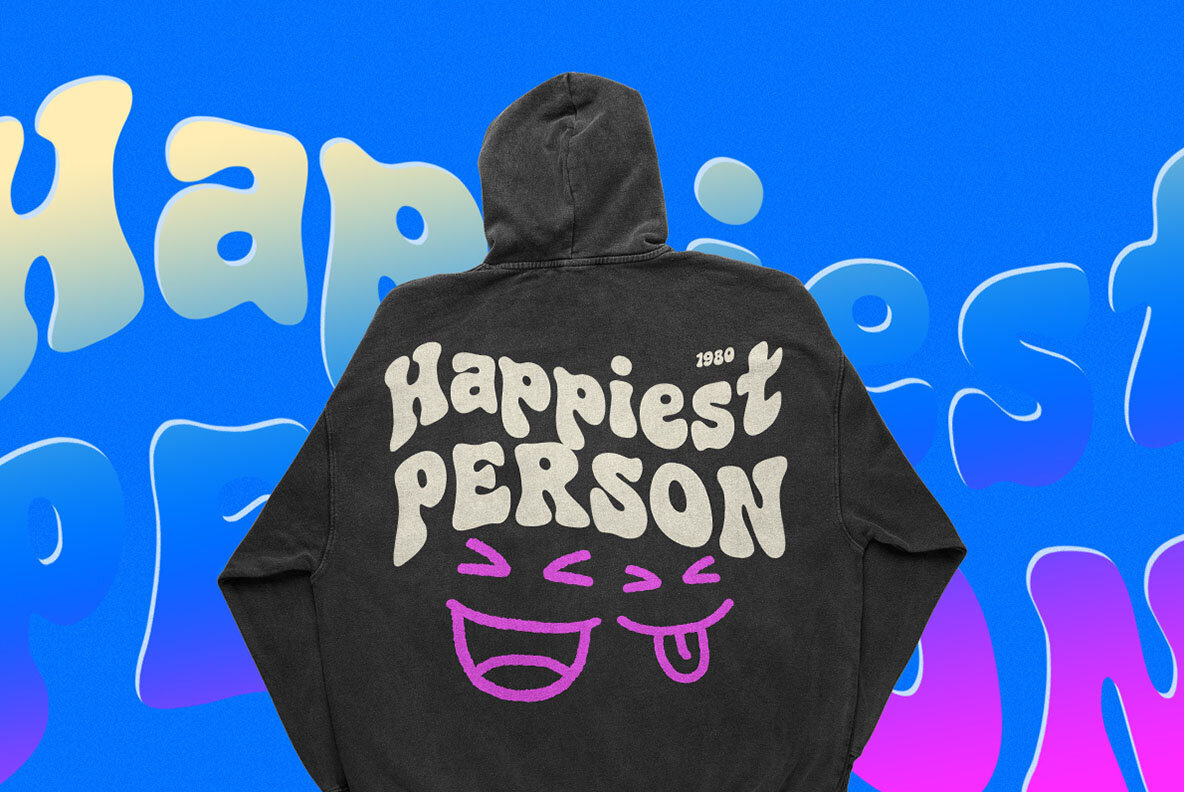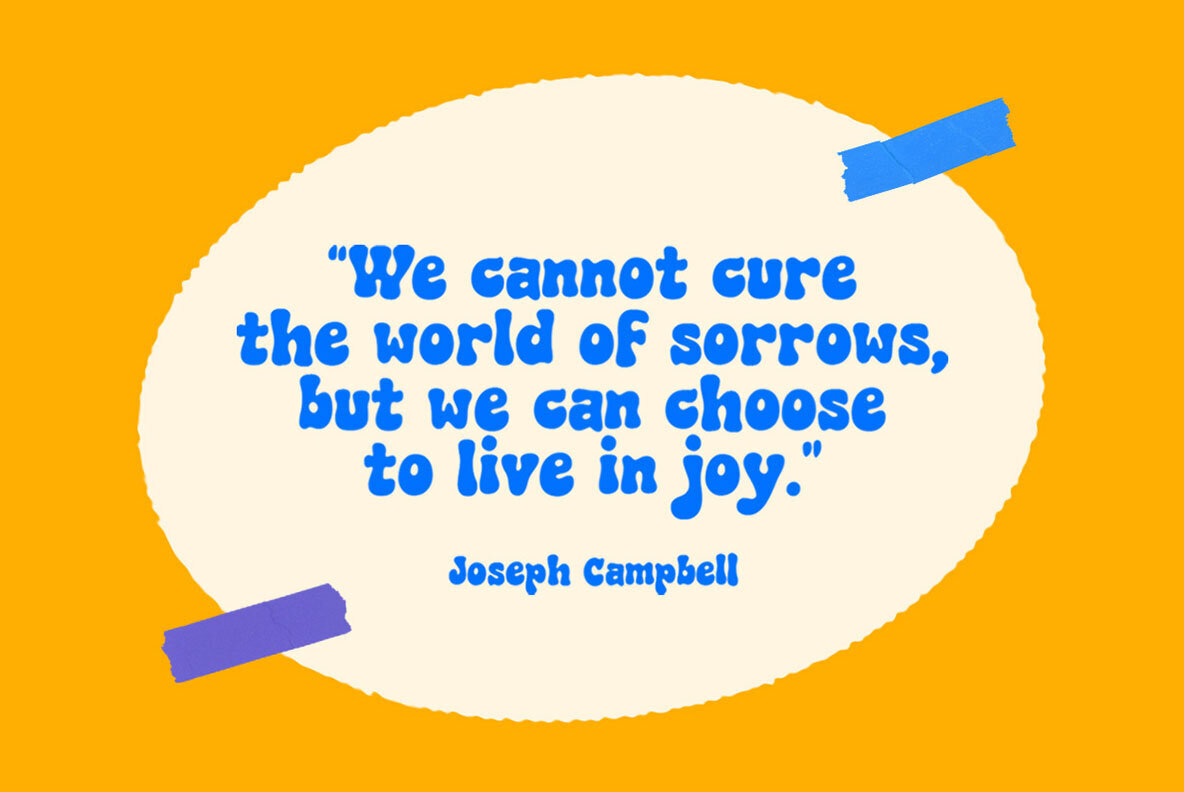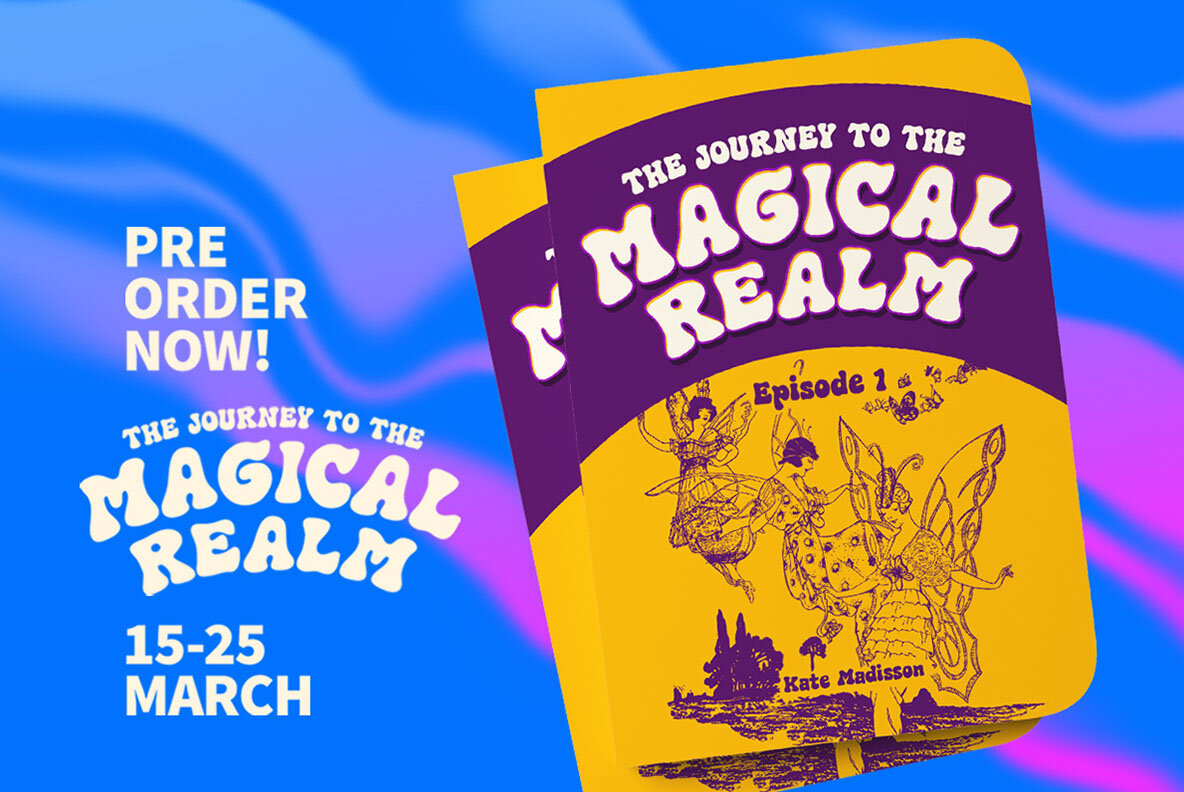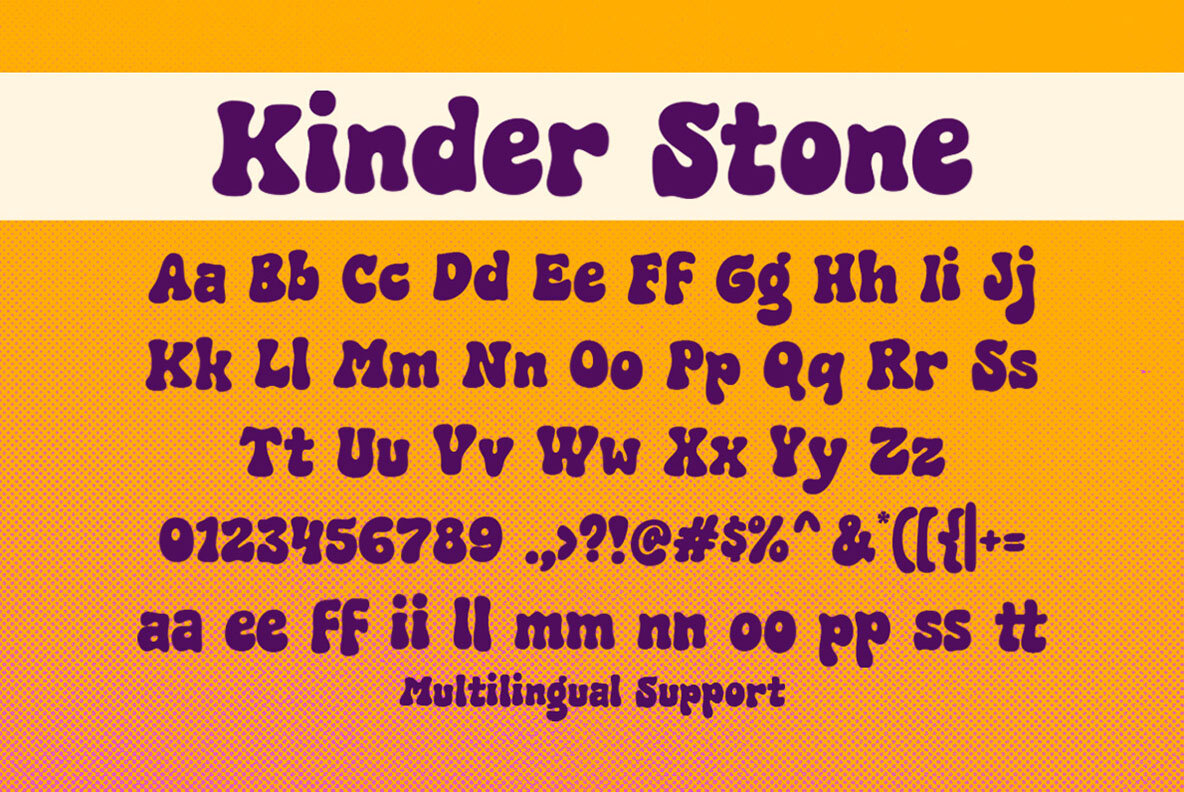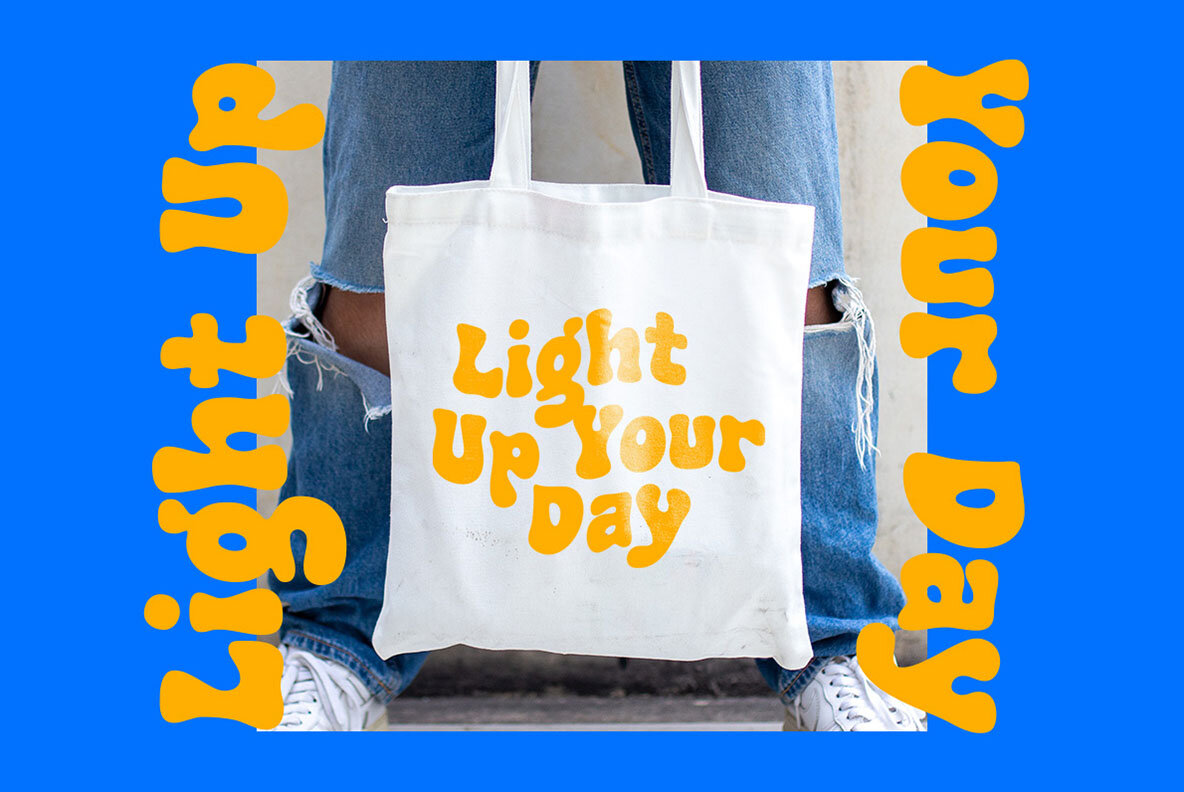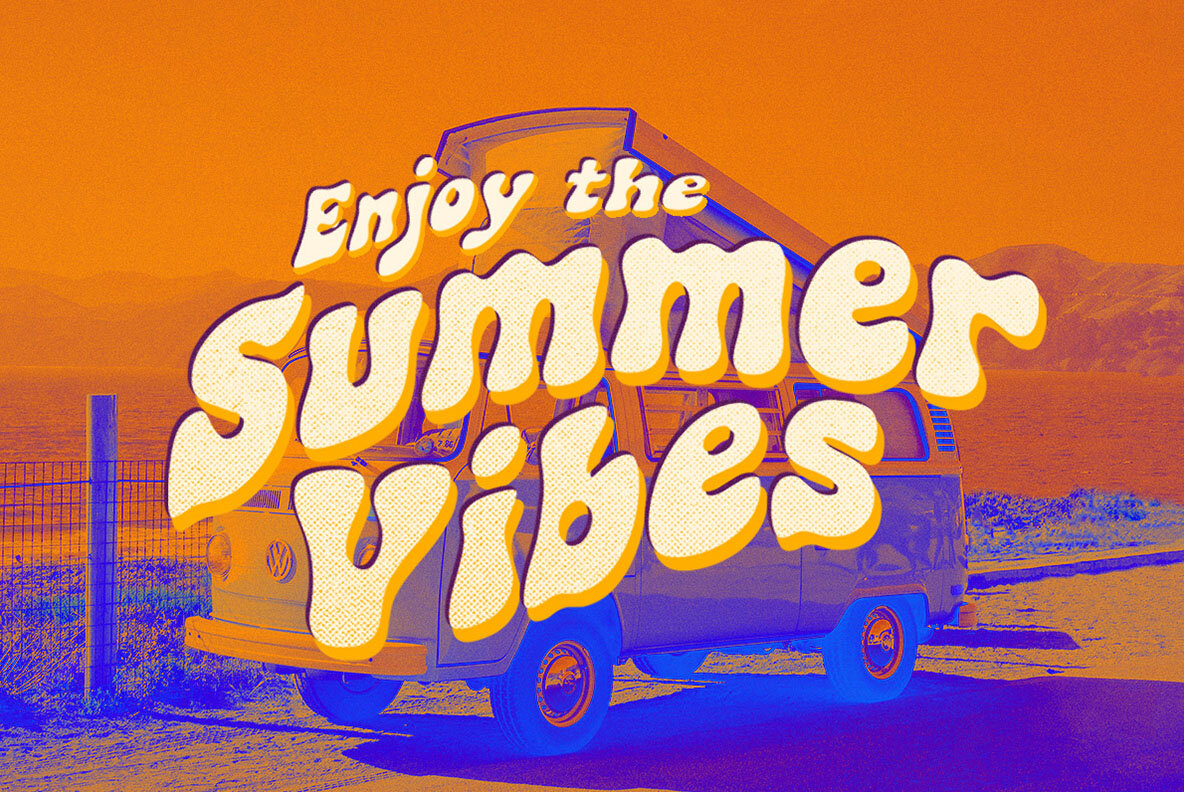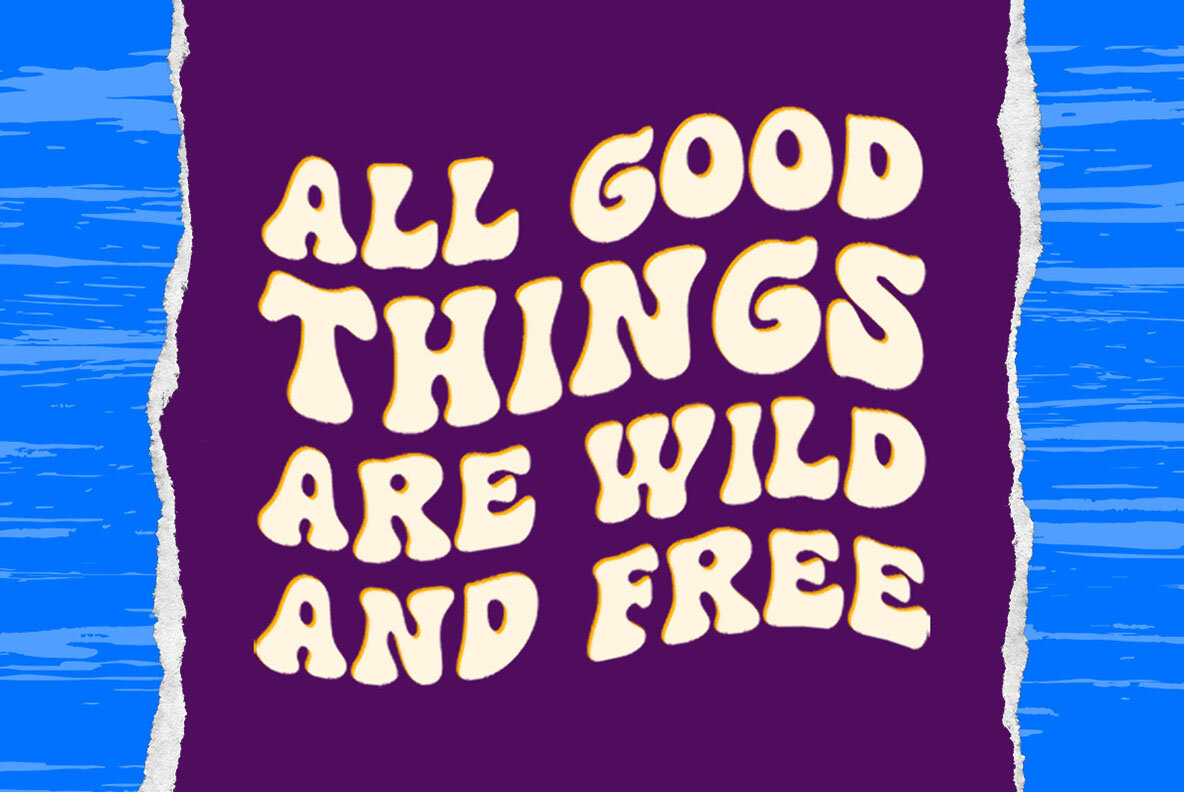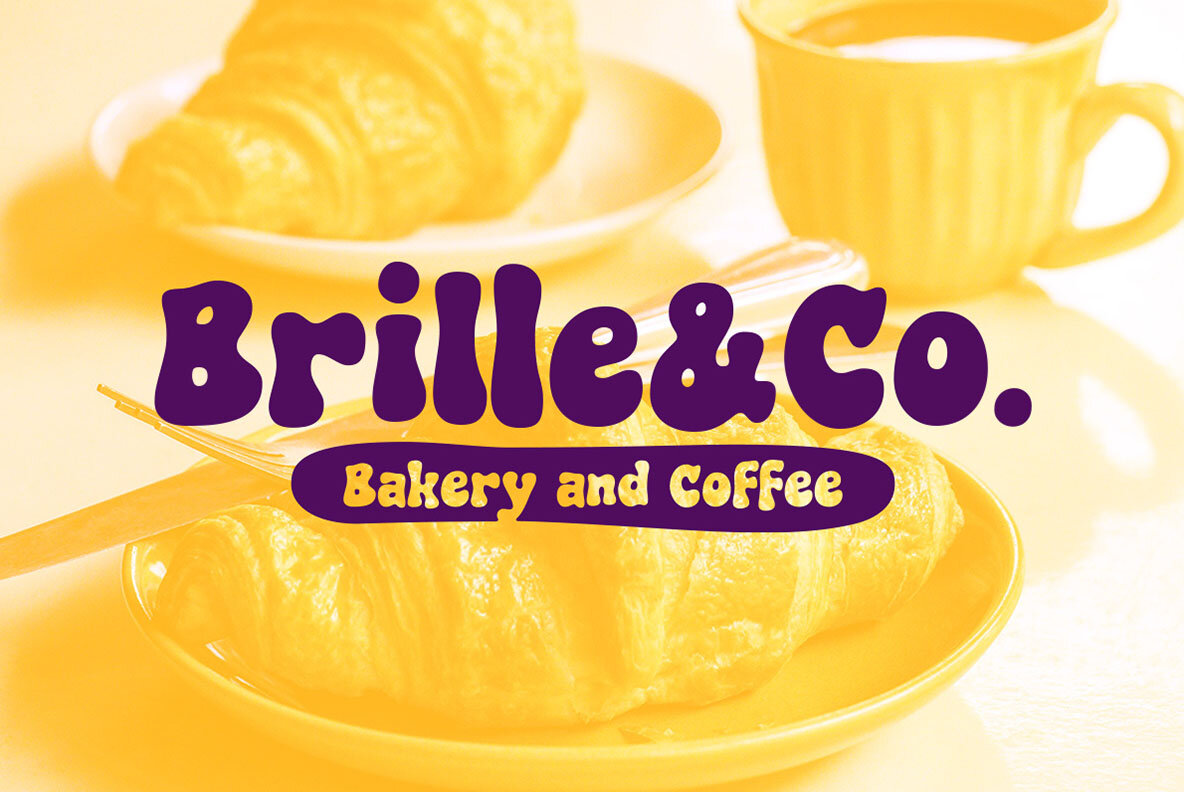
Kinder Stone Font
Kinder Stone Regular
Introduce a lively vibe to your projects with Kinder Stone, a delightful font that exudes charm and wit. Its rounded, bubbly characters make for a friendly, approachable appearance, while the cartoon-like style adds humor and playfulness. Kinder Stone is perfect for crafting logos, posters, and other design projects that call for a touch of fun and personality. Features: To fully utilize Kinder Stone's range of features, we recommend using software that supports OpenType capabilities and Glyphs panels, such as Adobe applications or Corel Draw, enabling you to access and explore all glyph variations seamlessly.